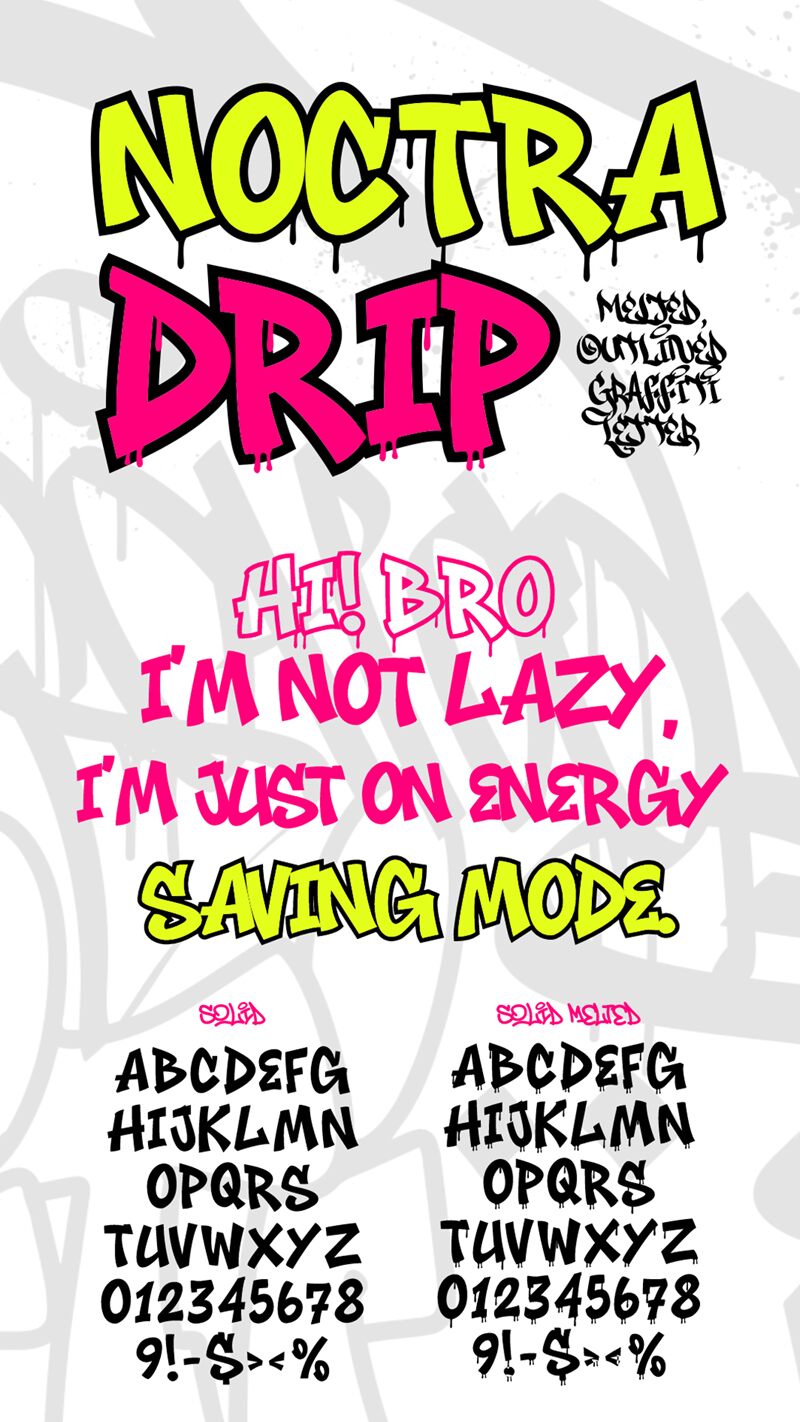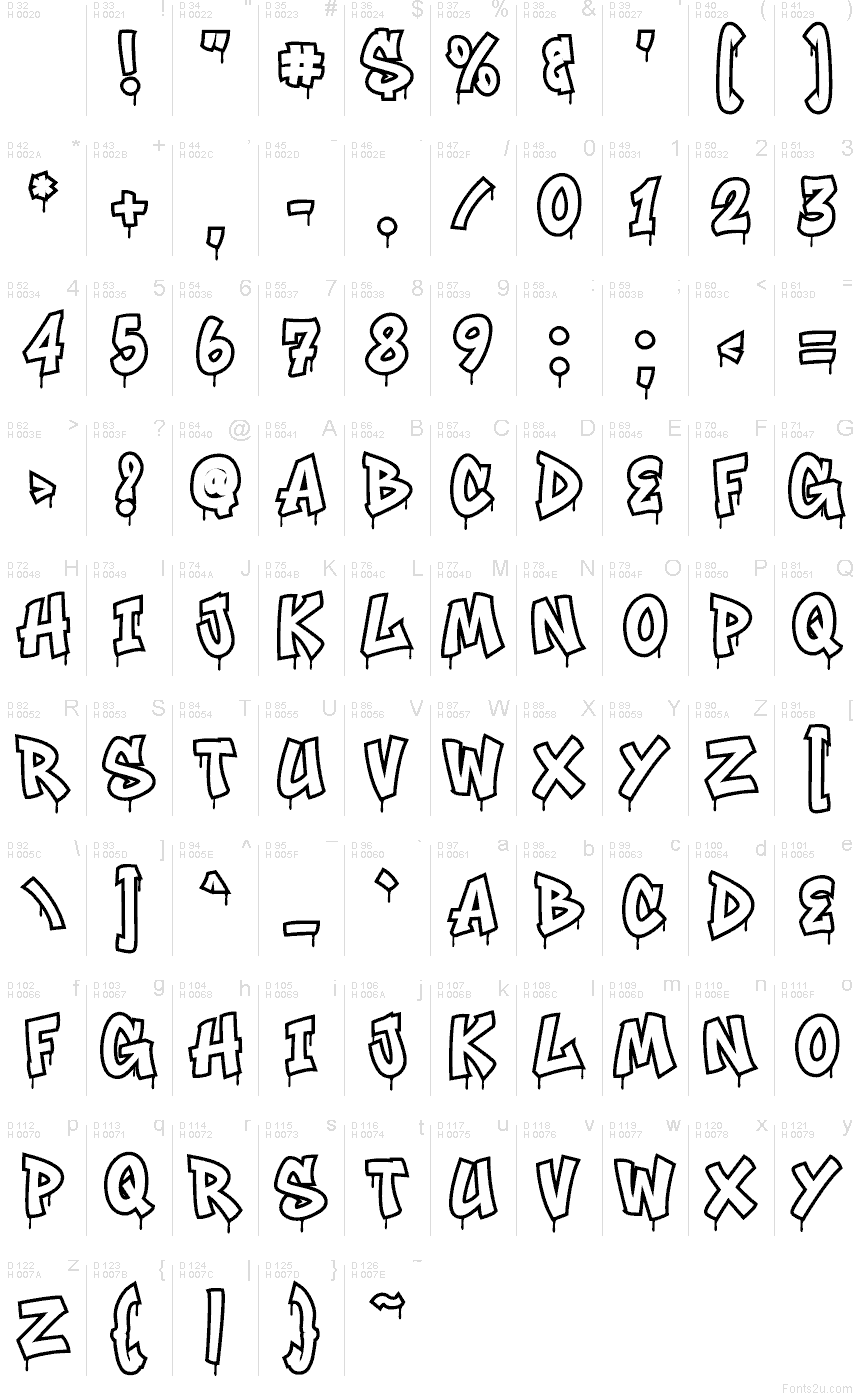
Noctra Drip OutlineMelt font by Muhammad Panji Ramdhani of Figuree Studio, from the Noctra Drip family, is a free graffiti font. It mixes puffy bubble shapes with sharp, hand-cut angles, then frames everything in a bold outline that looks like wet ink starting to sag and drip. The uneven rhythm keeps it loud and street-smart without turning messy.
Using Noctra Drip OutlineMelt, try it on skate or streetwear logos, album/mixtape covers, horror-comedy posters, gaming thumbnails, sticker packs, event flyers, and graffiti-style merch tags. This free font reads best when you size it up and give it breathing room; pair it with a plain condensed sans for dates, prices, or credits.